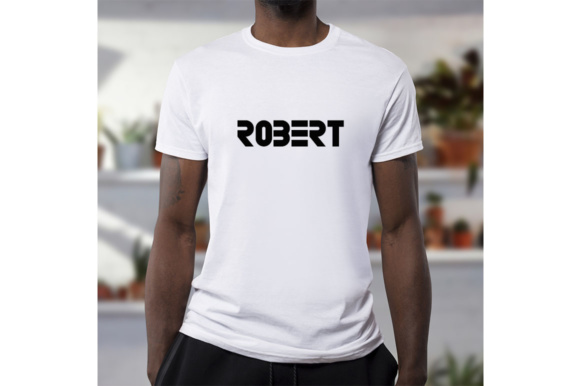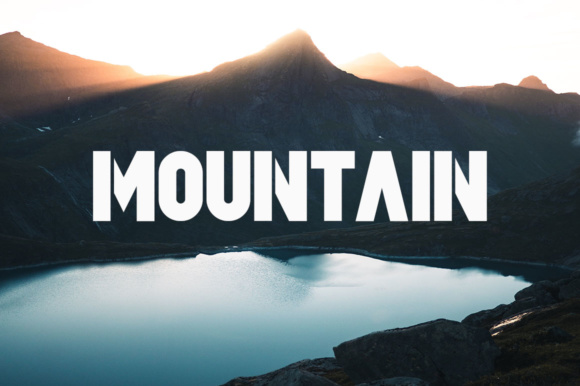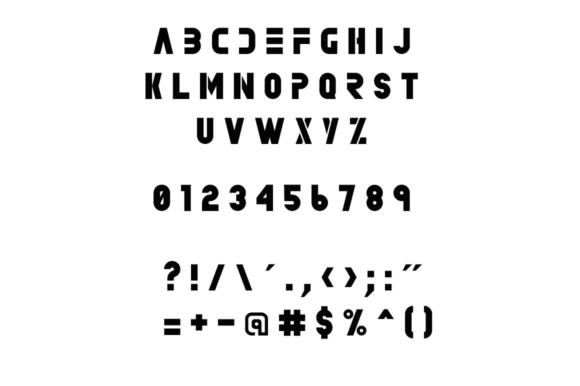
Introduction to Rave Font
Have you ever been in the middle of a creative project, staring at a blank canvas, and suddenly the perfect font pops into your head? That’s exactly what happened to me when I discovered the Rave Font. Its sleek, modern design made me feel like I could tackle any project that came my way. As a designer, finding the right font can make all the difference in bringing a concept to life.
The Rave Font is a game-changer for designers, offering a high-quality, free download that’s perfect for logo designs, product designs, and even book titles. With its transparent background, this design resource is incredibly versatile and can be used in a variety of creative projects. Whether you’re working on a personal or professional project, the Rave Font is sure to be a valuable addition to your design toolkit.
Key Features of Rave Font
- High-quality design with a vibrant and energetic aesthetic, perfect for creative projects.
- Features a transparent background, allowing for easy layering and customization in design projects.
- Includes a wide range of glyphs and characters, including uppercase and lowercase letters, numbers, and punctuation marks.
- Supports various font sizes and resolutions, from small to large, making it suitable for a variety of design applications.
- Designed to be highly legible and readable, even at small font sizes, making it perfect for creative projects that require clear typography.
Honest Review: Rave Font
I recently stumbled upon the Rave Font, a high-quality design resource that I just had to try out for my next creative project. The free download was a major plus, and I was excited to see how it would turn out.
Here are some things that really work well: ✨ The font is super versatile and can be used in a variety of contexts, from digital art to print design. The transparent background is also a nice touch, making it easy to integrate with other design elements.
- High-quality design that looks great on screen and in print
- Transparent background for easy integration with other design elements
- Great for digital art, print design, and other creative projects
However, there are a few limitations to consider: ⚠️ The font only comes in a few weights, which may limit its use in certain design situations. Additionally, the font is not as customizable as some other design resources.
Overall, I’m really impressed with the Rave Font. It’s a great addition to any designer’s toolkit, and I would definitely recommend it to anyone looking for a high-quality, free design resource.
Getting the Most Out of Rave Font
For the best results, use Rave Font in conjunction with a high contrast background to make the text stand out. Experiment with different font sizes and styles to create a unique look.
Common Use Cases for Rave Font
Rave Font is perfect for creating eye-catching titles, headings, and quotes. It’s also great for designing social media graphics, flyers, and posters.